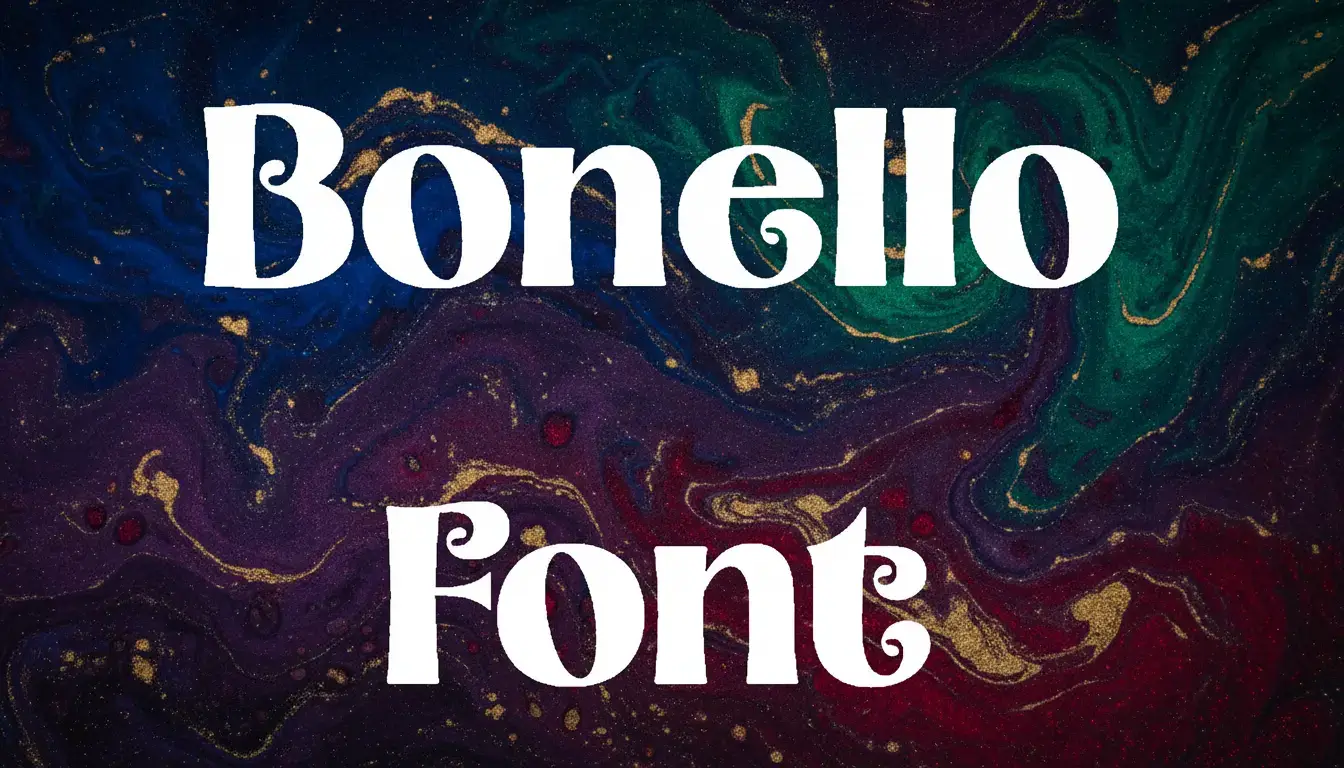
Bonello Font
Bonello
Bonello is a fancy font made by Kadek Mahardika. Bold and full of character, it's built to stand out rather than blend in. You can download it for free and test it with your own words in the preview above.
What You Can Type With Bonello
You get every letter from A to Z in both cases and all the numbers from 0 to 9, which means Bonello can handle full sentences, dates and prices. Everyday marks like &, !, ? and @ are there too. Thanks to its accented letters, it also works for Spanish, French, German, Portuguese and Italian, not just English.
Where Bonello Works Best
Designers usually reach for fonts like Bonello when they're making posters, logos and eye-catching headlines. Use it for one standout word or headline and let simpler fonts handle the rest.
Does Bonello support accented letters?
Yes. Bonello includes the accented letters needed for Spanish, French, German, Portuguese and Italian, so it works for more than just English.